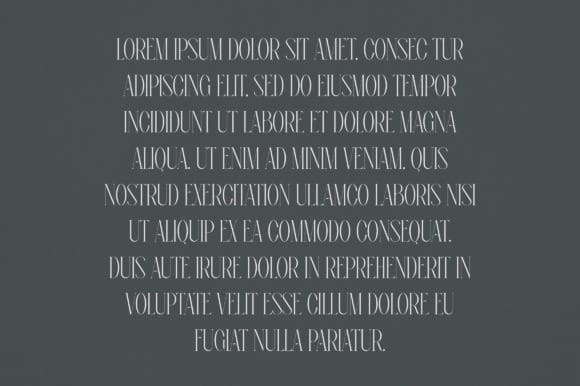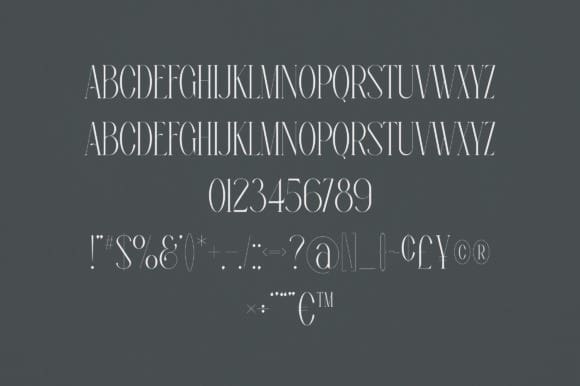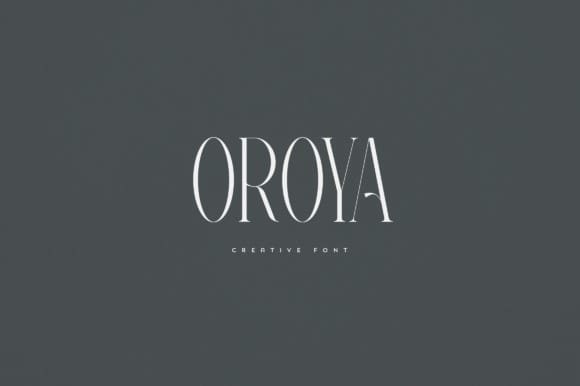
Oroya Font
Oroya Font is an elegant and versatile serif font that will make your typography truly unique! It will enchant every logo, branding, headline, or plain text!